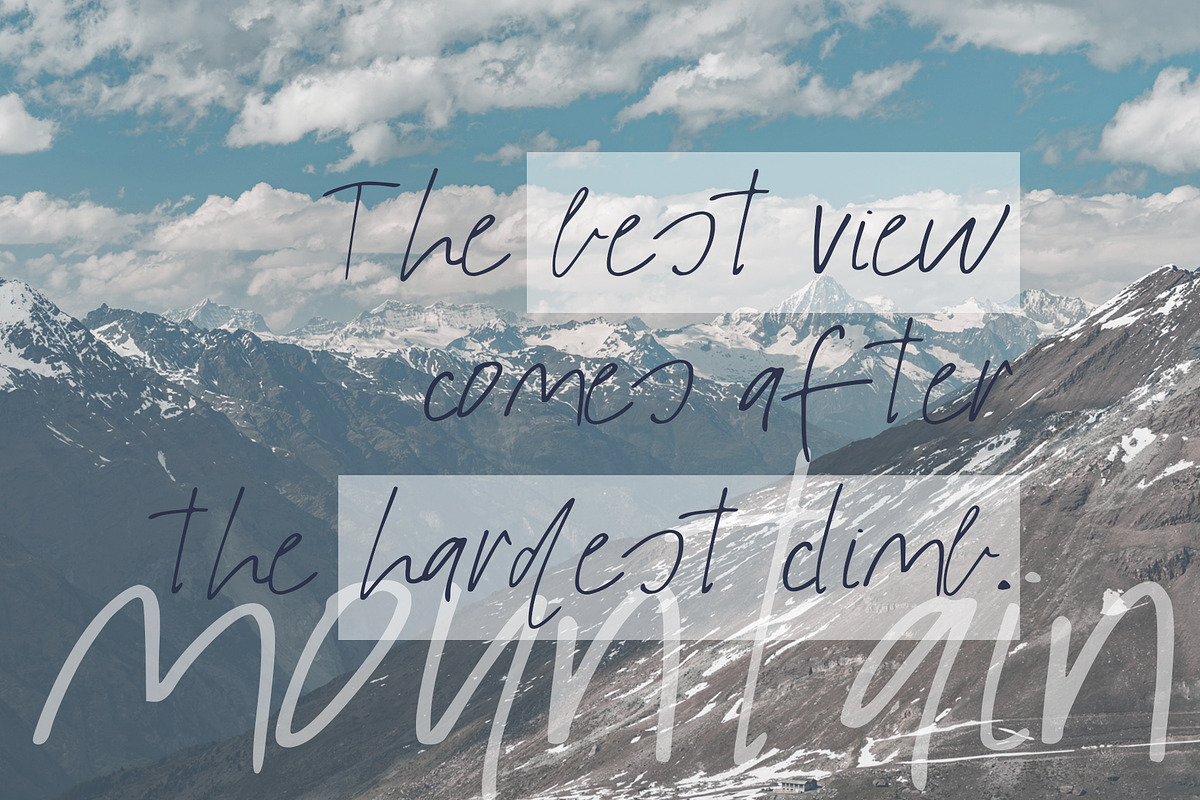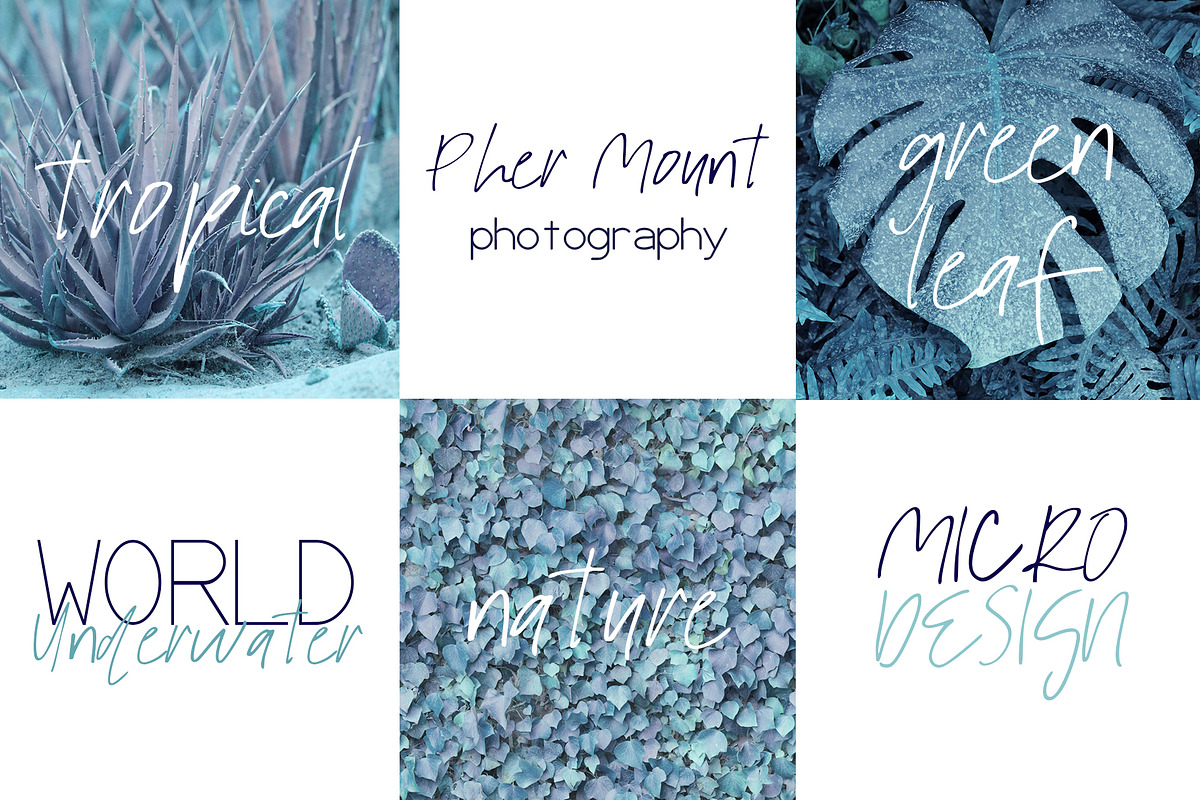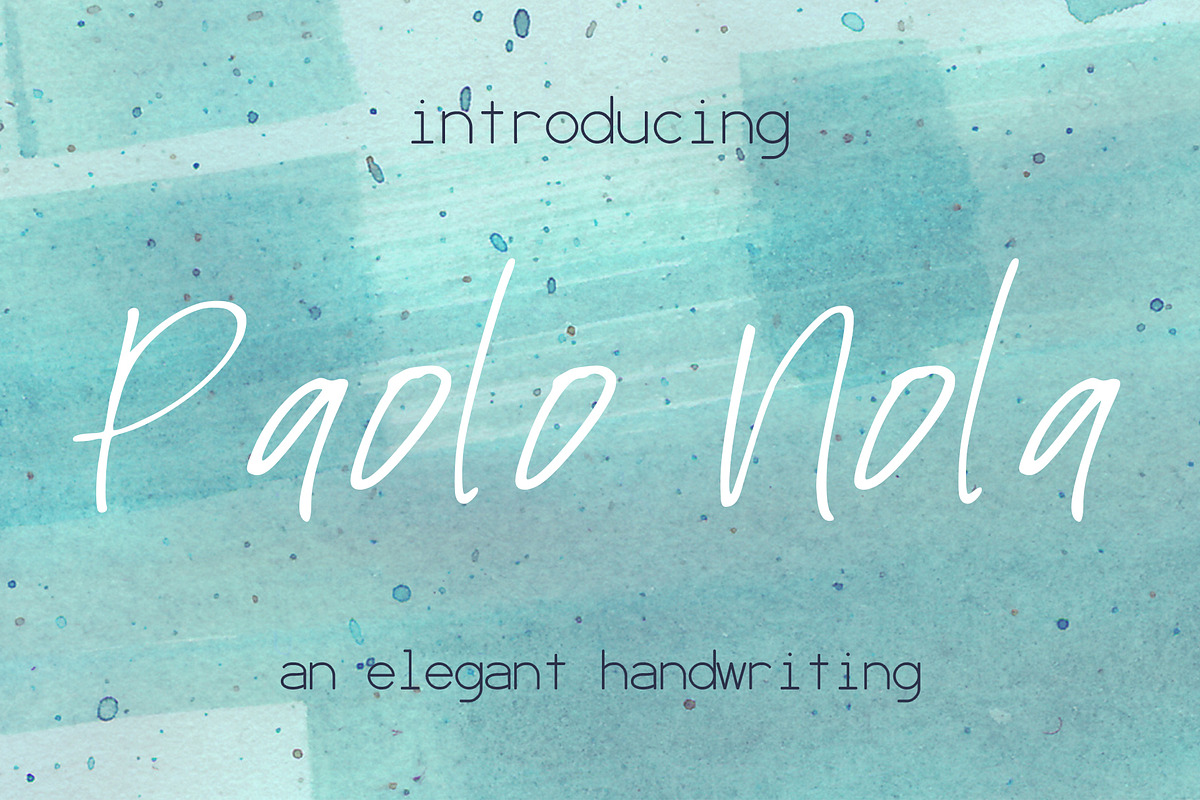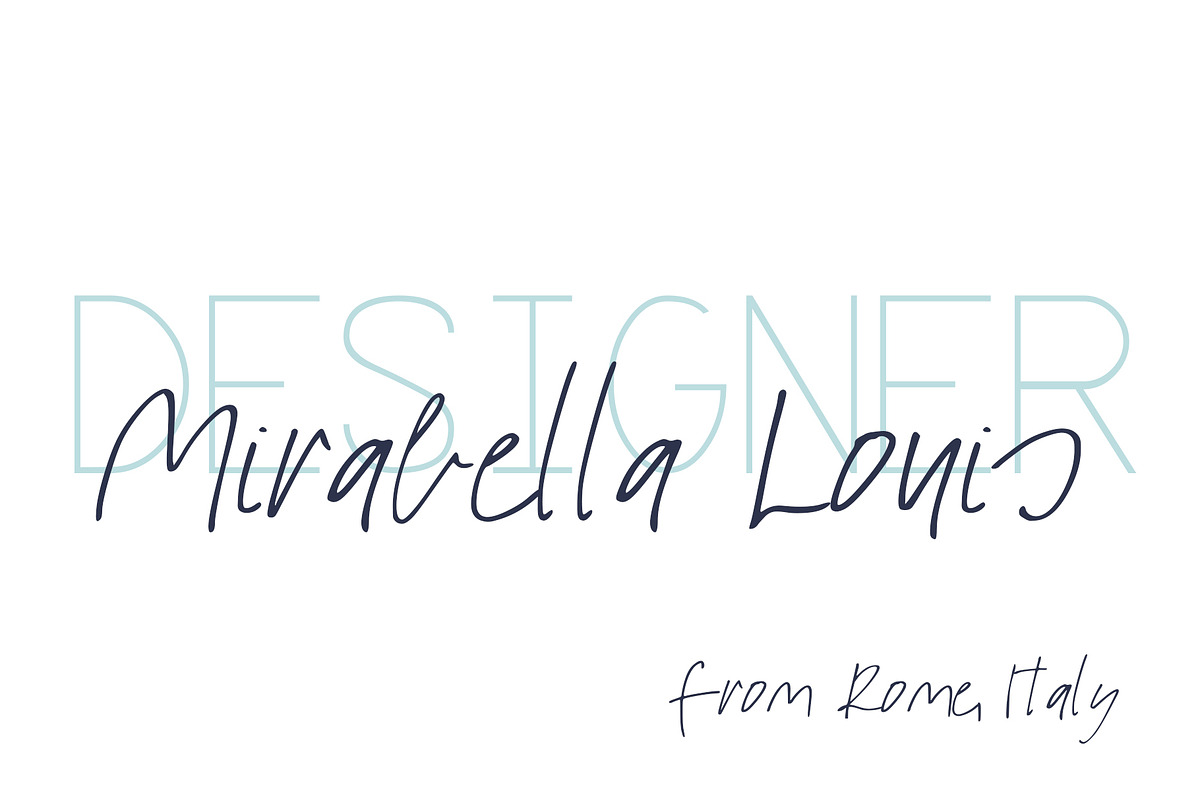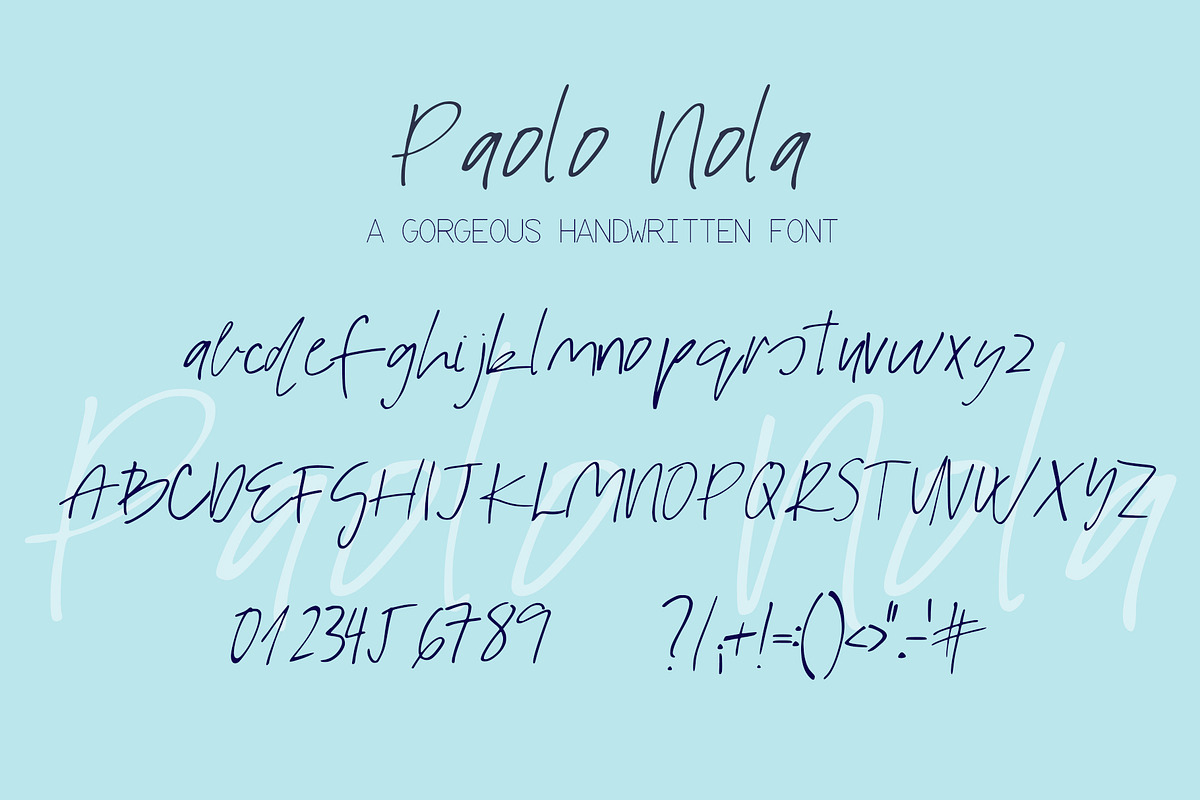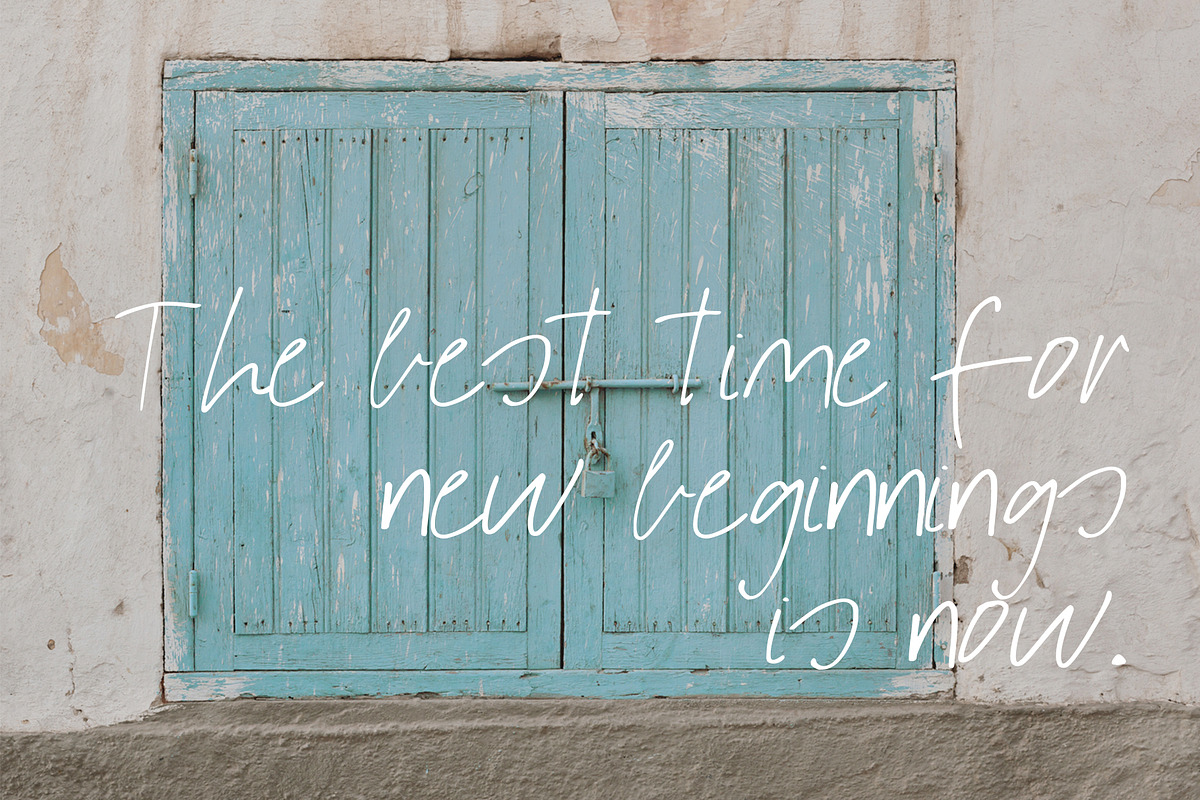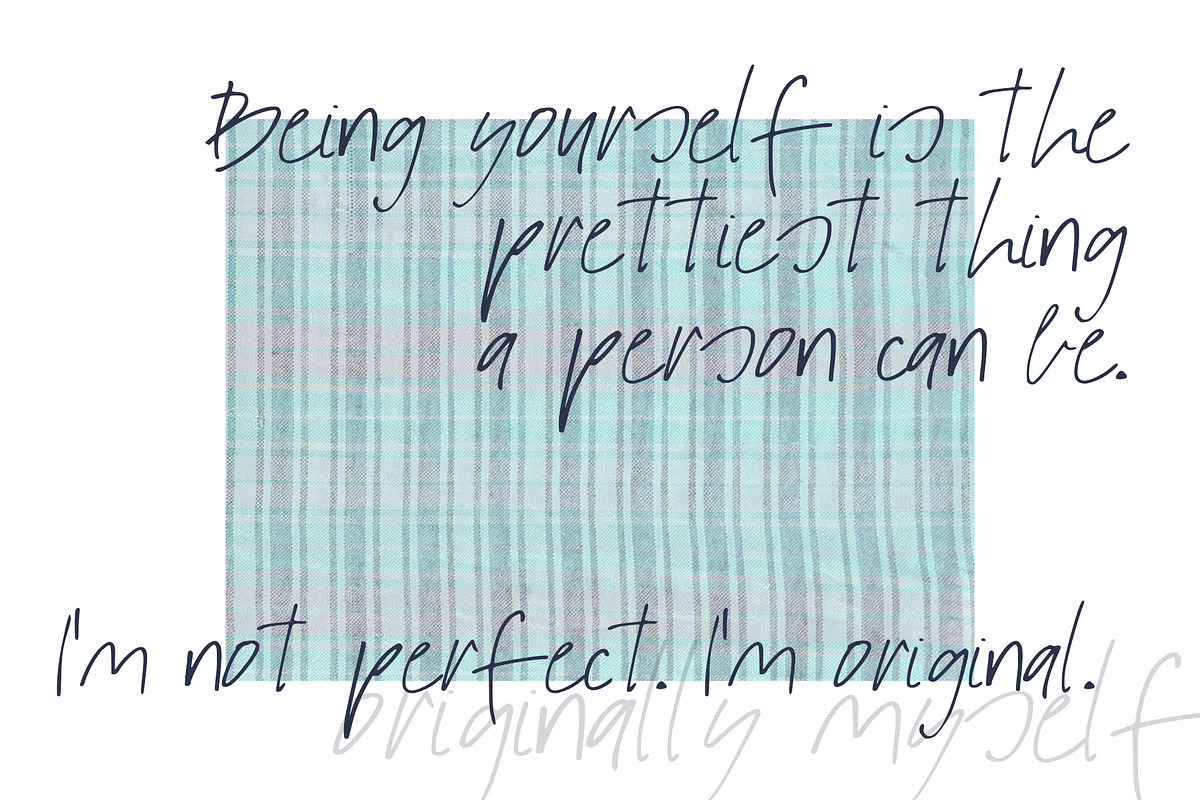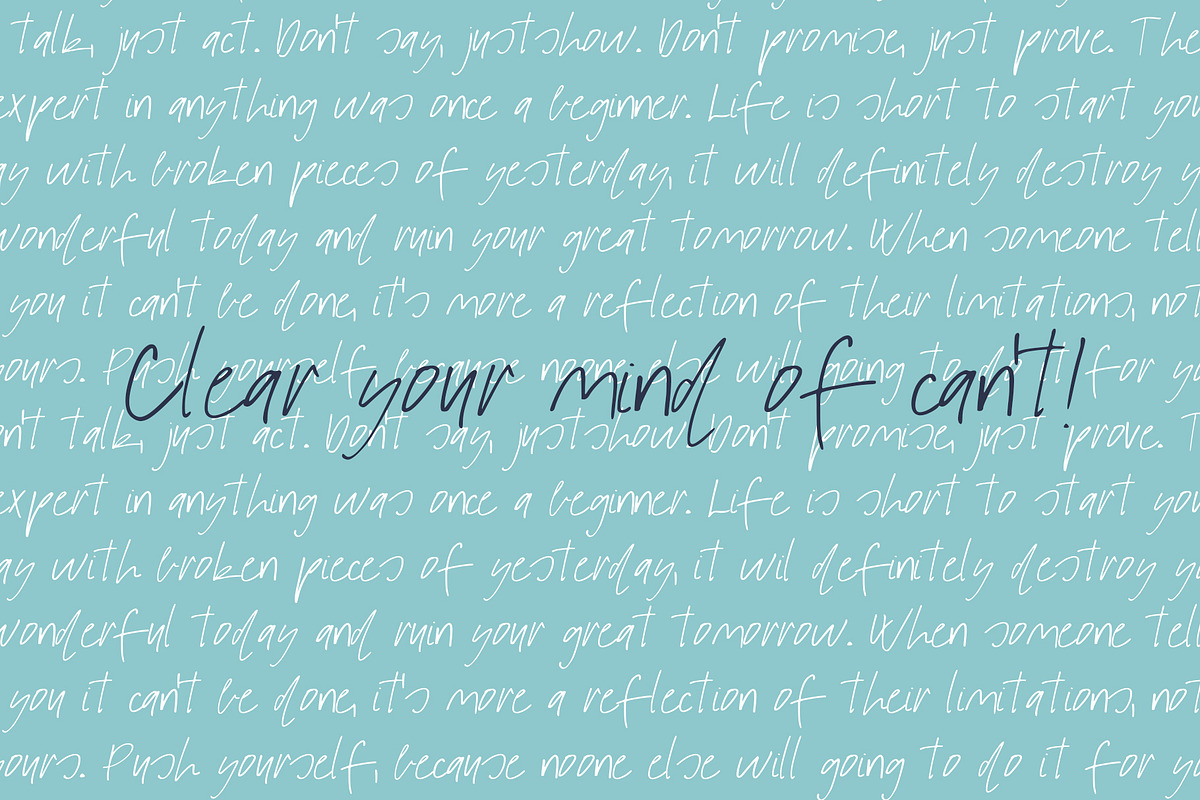
Paolo Nola Font
Introducing Paolo Nola, an elegant handwritten script.💗 Perfect for any graphic and logo designs, wedding and birthday invitations.
- Paolo Nola font contains uppercase & lowercase characters, numbers and punctuations.